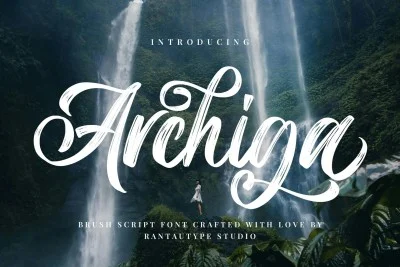
Free Script Fonts Perfect for Wedding Invitations and Personal Brands
Script fonts possess a unique power to transform ordinary text into expressions of personality, emotion, and celebration. For American couples planning weddings and entrepreneurs building personal brands, script typography offers the perfect balance of elegance and authenticity that speaks directly to the heart while maintaining professional credibility.
The wedding industry generates over $280 billion annually in the United States, with typography playing a crucial role in setting the emotional tone for one of life's most important celebrations. Meanwhile, the rise of personal branding and entrepreneurship has created unprecedented demand for typography that feels both professional and genuinely personal.
This comprehensive guide examines the best free script fonts for wedding invitations and personal brand applications, revealing how to select, customize, and implement script typography that creates emotional connection while achieving practical communication goals.
The Psychology of Script Typography
Emotional Connection and Personal Touch
Script fonts trigger immediate psychological associations with handwritten communication, personal attention, and human craftsmanship that mass-produced typography cannot replicate. These associations prove particularly powerful for weddings and personal brands where authentic emotional connection drives decision-making and relationship building.
American consumers consistently rate script typography as more trustworthy and personally engaging compared to geometric or corporate alternatives, particularly in contexts involving personal services, celebrations, and intimate communications.
The flowing, organic nature of script letterforms suggests time, care, and individual attention that appeals to clients seeking personalized experiences rather than mass-market solutions.
Luxury and Sophistication Signals
Well-executed script typography communicates luxury and sophistication without appearing pretentious or inaccessible. This balance proves essential for wedding vendors and personal brand professionals who must appeal to quality-conscious clients while maintaining broad market accessibility.
Script fonts can elevate perceived value and justify premium pricing for wedding services and personal brand offerings by suggesting artisanal quality and exclusive attention that clients associate with luxury experiences.
The key lies in selecting script fonts that feel genuinely elegant rather than artificially fancy, creating sophistication through authentic beauty rather than ostentatious decoration.
Versatility Across Applications
Modern script fonts must perform effectively across diverse applications from large-format wedding signage to small personal brand business cards to digital social media graphics. This versatility requirement eliminates many decorative scripts while favoring fonts with clear construction and scalable design.
The most successful wedding and personal brand script fonts maintain character and readability whether applied to massive ceremony backdrops or intimate thank-you note details.
Elegant Formal Scripts for Traditional Weddings
Timeless Romance and Classical Beauty
Traditional American weddings often embrace classical elegance and timeless romance that script fonts can enhance through carefully chosen formal lettering styles that honor tradition while feeling fresh and contemporary.
Great Vibes
This elegant script provides sophisticated formal appeal perfect for traditional wedding invitations requiring classical beauty with contemporary functionality. Its flowing letterforms suggest luxury and celebration while maintaining excellent readability across all wedding communication needs.
Best Applications: Formal wedding invitations, ceremony programs, elegant signage, traditional branding Character: Sophisticated, romantic, traditionally elegant
Dancing Script
One of the most versatile and beloved script fonts, Dancing Script offers graceful curves and excellent readability that work beautifully for both wedding applications and personal brand development requiring elegant yet approachable character.
Best Applications: Wedding invitations, personal brand logos, elegant marketing materials, celebration graphics Character: Graceful, approachable, romantically sophisticated
Allura
This flowing script provides dramatic elegance perfect for couples seeking sophisticated wedding typography that makes a memorable impression while maintaining readability for practical wedding communication needs.
Best Applications: Wedding logos, formal invitations, elegant signage, luxury brand positioning Character: Dramatic, flowing, luxuriously elegant
Alex Brush
Combining traditional calligraphy influences with contemporary functionality, Alex Brush creates wedding typography that feels both timelessly elegant and completely current for modern American celebrations.
Best Applications: Wedding invitations, save-the-dates, ceremony signage, romantic branding Character: Calligraphic, traditional, romantically timeless
Casual Modern Scripts for Contemporary Celebrations
Relaxed Elegance and Approachable Sophistication
Modern American weddings increasingly embrace relaxed elegance and approachable sophistication that casual script fonts can provide through contemporary letterforms that feel genuine and unpretentious.
Pacifico
This hand-painted script brings casual confidence to wedding applications while maintaining enough sophistication for professional personal brand development across diverse industries and target audiences.
Best Applications: Beach weddings, casual celebrations, creative personal brands, approachable luxury services Character: Casual, confident, hand-painted charm
Caveat
Originally designed for quick note-taking, Caveat provides authentic handwritten appeal that works beautifully for couples seeking genuine, unpretentious wedding typography and personal brands emphasizing authenticity.
Best Applications: Casual wedding invitations, personal note cards, authentic personal branding, handwritten marketing Character: Authentic, casual, genuinely handwritten
Kalam
This handwriting-inspired font offers natural, organic appeal perfect for couples and personal brands seeking typography that feels genuinely personal rather than artificially decorated or overly formal.
Best Applications: Intimate weddings, personal brand communications, handwritten marketing, authentic storytelling Character: Natural, organic, personally authentic
Satisfy
Satisfy provides relaxed script appeal with enough structure for professional applications, making it ideal for wedding vendors and personal brands requiring approachable sophistication.
Best Applications: Wedding vendor branding, lifestyle personal brands, casual luxury services, approachable elegance Character: Relaxed, structured, approachably sophisticated
Brush and Hand-Lettered Styles
Artistic Expression and Creative Energy
Brush and hand-lettered scripts provide artistic expression and creative energy that appeal to couples seeking unique wedding aesthetics and personal brands requiring distinctive creative positioning.
Amatic SC
This hand-drawn font provides authentic, slightly imperfect character that appeals to couples seeking genuine artistic expression and personal brands emphasizing creativity and individual character.
Best Applications: Artistic wedding themes, creative personal brands, handmade aesthetics, authentic storytelling Character: Hand-drawn, authentic, artistically imperfect
Permanent Marker
While bold and casual, Permanent Marker provides distinctive character perfect for creative wedding applications and personal brands seeking to project energy and individual personality.
Best Applications: Creative wedding signage, artistic personal brands, energetic marketing, distinctive character expression Character: Bold, energetic, distinctively creative
Covered By Your Grace
This marker-style script offers friendly, approachable appeal perfect for couples and personal brands seeking typography that feels both creative and accessible to diverse audiences.
Best Applications: Casual creative weddings, approachable personal brands, friendly marketing, accessible creativity Character: Friendly, approachable, creatively accessible
Vintage and Retro-Inspired Scripts
Nostalgic Charm and Historical Romance
Vintage-inspired script fonts provide nostalgic charm and historical romance that appeal to couples seeking wedding typography with heritage character and personal brands emphasizing traditional values or vintage aesthetics.
Yesteryear
This vintage-inspired script provides nostalgic appeal perfect for couples seeking wedding typography that honors tradition while feeling fresh and romantic for contemporary American celebrations.
Best Applications: Vintage wedding themes, heritage personal brands, nostalgic marketing, traditional elegance Character: Vintage, nostalgic, traditionally romantic
Fredericka the Great
Combining historical influences with contemporary functionality, this script provides distinctive vintage character perfect for unique wedding themes and personal brands seeking historical sophistication.
Best Applications: Historical wedding venues, vintage personal brands, heritage marketing, traditional sophistication Character: Historical, distinctive, vintage sophistication
Meddon
This Art Deco-influenced script provides vintage glamour perfect for couples seeking wedding typography that combines historical sophistication with contemporary celebration energy.
Best Applications: Art Deco weddings, glamorous celebrations, vintage luxury brands, sophisticated nostalgia Character: Art Deco, glamorous, vintage luxury
Personal Brand Script Applications
Professional Services with Personal Touch
Personal brands in professional services require script fonts that balance individual personality with business credibility, creating typography that feels both professional and genuinely personal.
Professional Service Applications
- Consultants and Coaches: Use elegant scripts like Great Vibes or Dancing Script for personal brand materials that project expertise while maintaining approachable character
- Creative Professionals: Implement artistic scripts like Amatic SC or Caveat for branding that immediately communicates creative capability and individual vision
- Wellness Providers: Choose calming scripts like Satisfy or Kalam that suggest personal care and individual attention essential for health and wellness positioning
Entrepreneur and Small Business Branding
- Lifestyle Businesses: Leverage casual scripts like Pacifico or Covered By Your Grace for brands targeting lifestyle and leisure markets requiring approachable sophistication
- Artisanal Products: Use authentic scripts like Amatic SC or Caveat for brands emphasizing handcrafted quality and individual artistic expression
- Service Professionals: Implement professional scripts like Dancing Script or Alex Brush for service businesses requiring elegant professionalism with personal touch
Wedding Industry Vendor Applications
Photographer and Videographer Branding
Wedding photographers and videographers require script fonts that suggest artistic capability while maintaining professional credibility essential for high-value wedding service positioning.
Portfolio Presentation: Use elegant scripts like Allura or Great Vibes for portfolio presentation materials that suggest artistic sophistication while maintaining readability for client evaluation.
Marketing Materials: Implement versatile scripts like Dancing Script or Satisfy for marketing materials that must appeal to diverse wedding styles while maintaining consistent brand character.
Client Communication: Choose readable scripts like Caveat or Kalam for client communication materials that suggest personal attention while ensuring clear information delivery.
Wedding Planner and Coordinator Typography
Wedding planners require script fonts that project organizational competence while maintaining the romantic character essential for wedding industry credibility and client appeal.
Business Materials: Use sophisticated scripts like Alex Brush or Dancing Script for business cards and marketing materials that suggest romantic expertise while maintaining professional credibility.
Client Presentations: Implement clear scripts like Satisfy or Pacifico for client presentation materials that must balance romantic appeal with practical information delivery.
Vendor Coordination: Choose readable scripts like Caveat or Kalam for vendor coordination materials that maintain brand character while ensuring clear professional communication.
Implementation Strategies and Best Practices
Pairing Scripts with Supporting Fonts
Effective script font implementation requires strategic pairing with supporting fonts that enhance rather than compete with script character while ensuring readability for practical information.
Script and Sans-Serif Combinations: Pair elegant scripts like Great Vibes with clean sans-serifs like Source Sans Pro for wedding invitations that balance romantic appeal with practical readability.
Script and Serif Pairings: Combine casual scripts like Pacifico with traditional serifs like Crimson Text for personal brand materials that suggest both creativity and established credibility.
Multiple Script Coordination: When using multiple scripts, ensure they share similar characteristics and avoid conflicts that create visual confusion or dilute brand character.
Size and Spacing Optimization
Script fonts require careful attention to size and spacing to maintain readability while preserving the flowing character that makes script typography appealing.
Large Format Applications: Optimize script fonts for large format wedding signage and displays where character details can be fully appreciated and romantic impact maximized.
Small Format Readability: Ensure script fonts remain readable at small sizes required for business cards, detail cards, and other intimate wedding and personal brand applications.
Digital Optimization: Test script fonts across digital applications including websites and social media to ensure character preservation and readability across diverse screen types and sizes.
Color and Contrast Considerations
Script fonts often require careful color and contrast management to maintain readability while achieving the romantic or sophisticated visual impact essential for wedding and personal brand success.
Background Compatibility: Choose script fonts that work effectively against diverse background colors and textures commonly used in wedding design and personal brand applications.
Contrast Optimization: Ensure sufficient contrast between script fonts and backgrounds while maintaining the soft, romantic character that makes script typography appealing for celebrations.
Brand Color Integration: Adapt script fonts to work within existing brand color palettes while maintaining character and readability across all applications and contexts.
Future Trends in Script Typography
Digital Integration and Animation
Modern wedding and personal brand applications increasingly require script fonts that work effectively in digital environments including animated social media content and interactive website elements.
Social Media Optimization: Script fonts must perform effectively in social media graphics where small sizes and diverse viewing conditions challenge traditional script readability.
Animation Compatibility: Consider how script fonts will appear in animated applications including wedding video graphics and social media story content requiring movement and transition effects.
Variable Font Evolution
Emerging variable font technologies enable script fonts with adjustable characteristics that can optimize for different applications while maintaining consistent brand character.
Responsive Script Design: Variable script fonts may enable responsive design approaches that adapt script character to different contexts and viewing conditions automatically.
Customization Opportunities: Advanced script font technologies may enable greater customization options for wedding and personal brand applications requiring unique character while maintaining readability.
Script fonts provide powerful tools for creating emotional connection and personal appeal in wedding and personal brand applications. The free fonts recommended in this guide offer proven starting points for typography that enhances rather than hinders communication goals while creating the romantic and personal character essential for celebration and relationship-building contexts.
Success with script typography requires understanding the balance between character and readability while considering the diverse applications and audiences that wedding and personal brand communications must serve. Whether creating elegant wedding invitations or distinctive personal brand materials, the right script fonts can transform ordinary communications into memorable expressions of personality and celebration that resonate with American audiences seeking authentic, beautiful experiences.